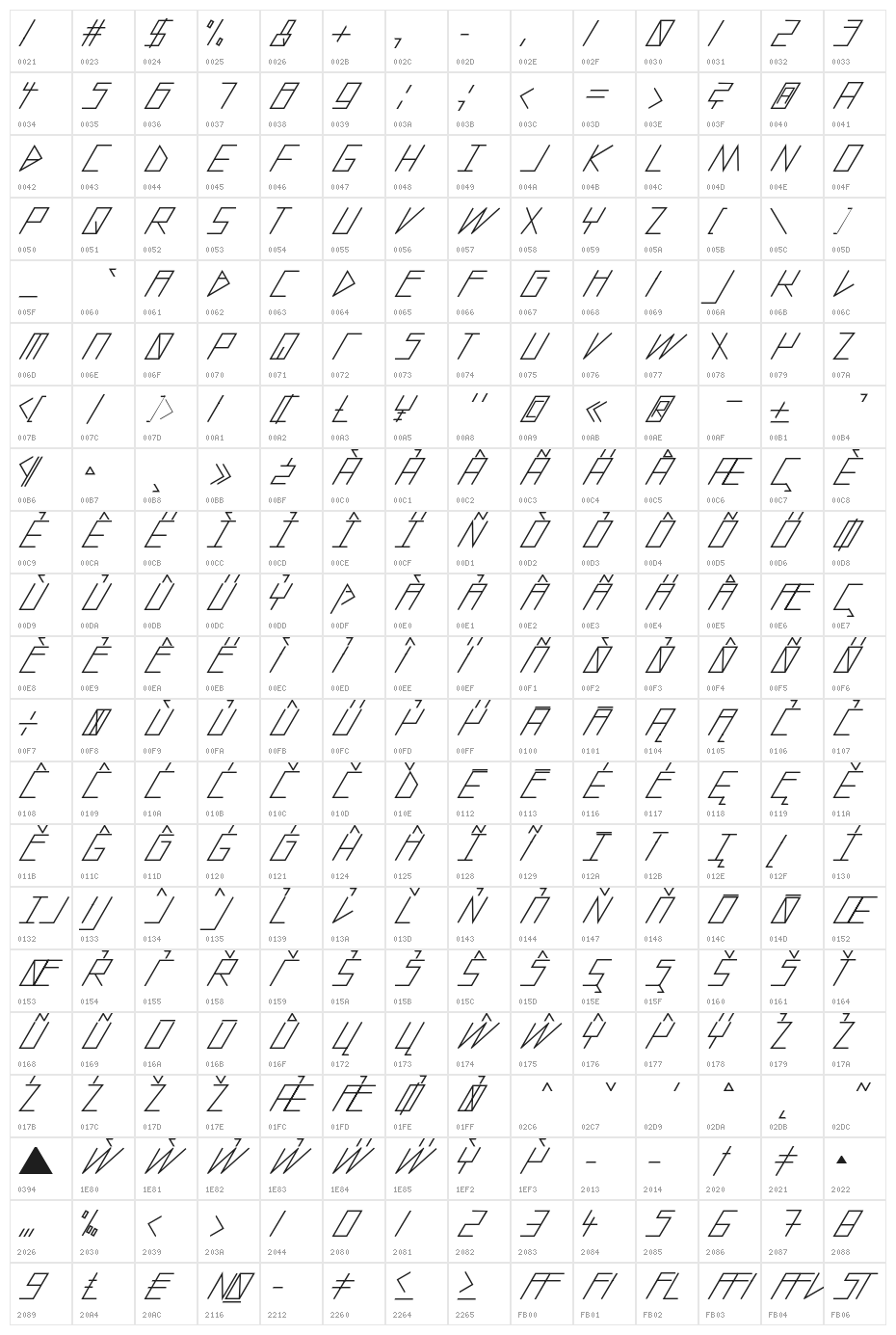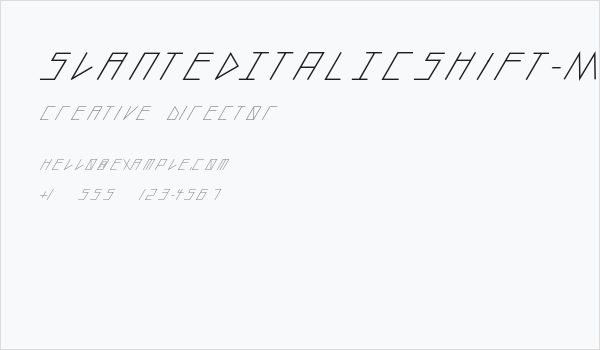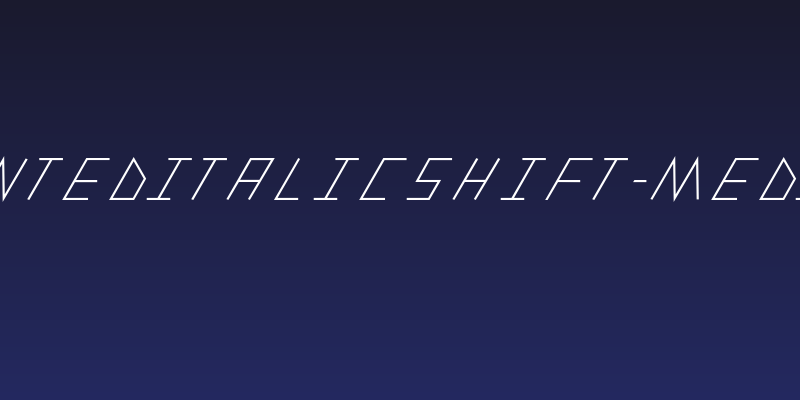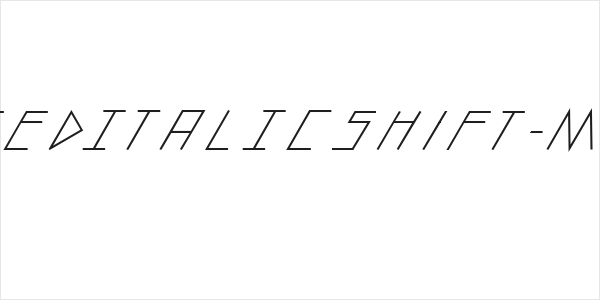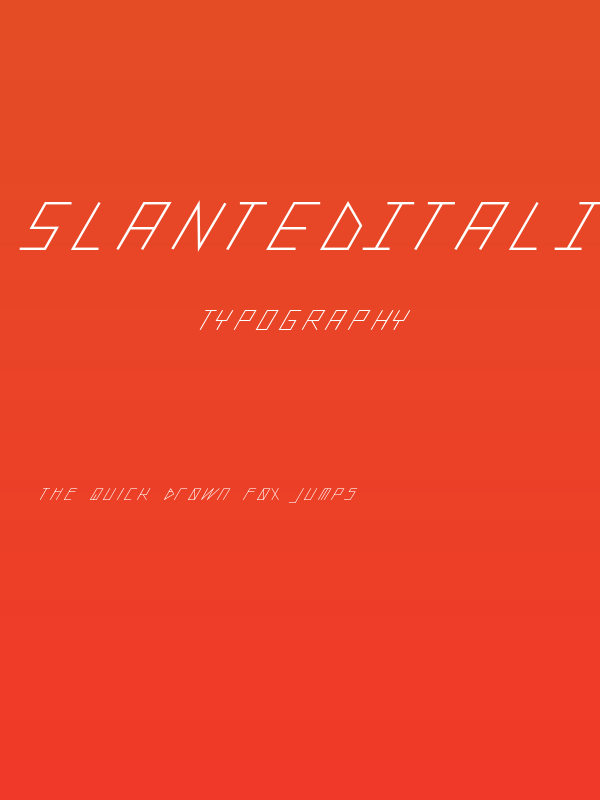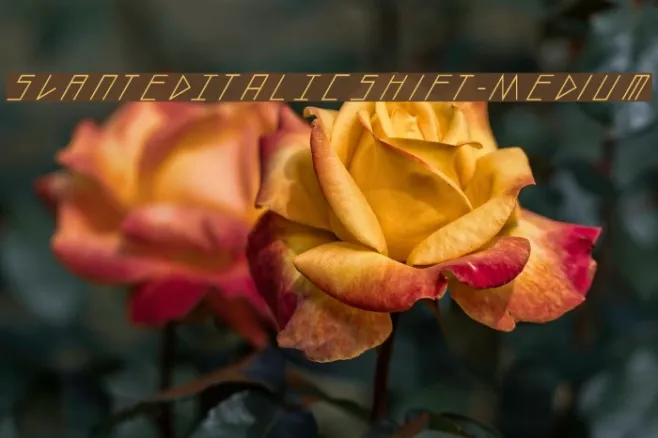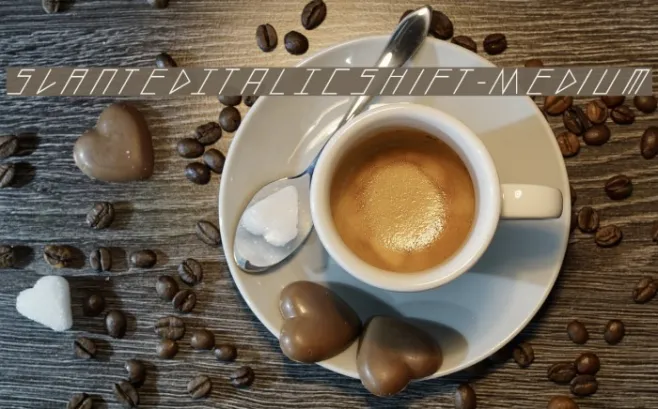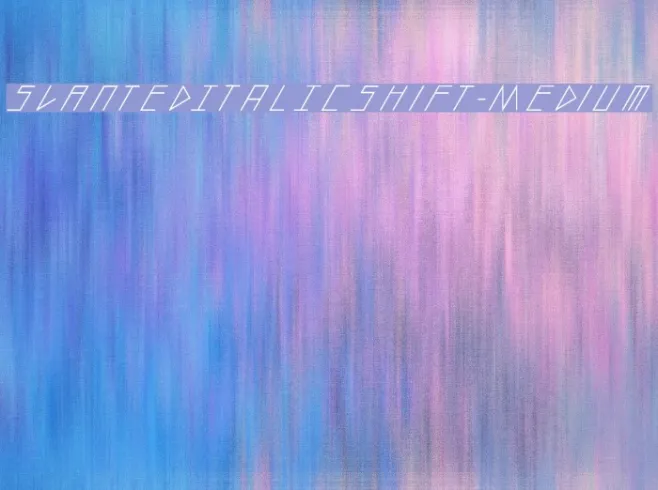
slantedITALICshift-Medium Font
slantedITALICshift-Medium Description
This font features a distinct slanted and italicized style, characterized by sharp angles and geometric forms. Each letter is crafted with precision, giving it a futuristic and modern appearance. The uppercase and lowercase letters maintain a consistent slant, enhancing the dynamic feel of the typeface. Numbers and special characters follow the same design principles, ensuring uniformity across all elements. The font's clean lines and angular shapes make it suitable for projects that require a contemporary and edgy look.
| Overall Style | Modern, Futuristic |
| Use Case | Logos, Headlines, Digital Art |
| Proposed Projects | Ideal for tech branding, futuristic designs, digital art, and modern advertising campaigns. |